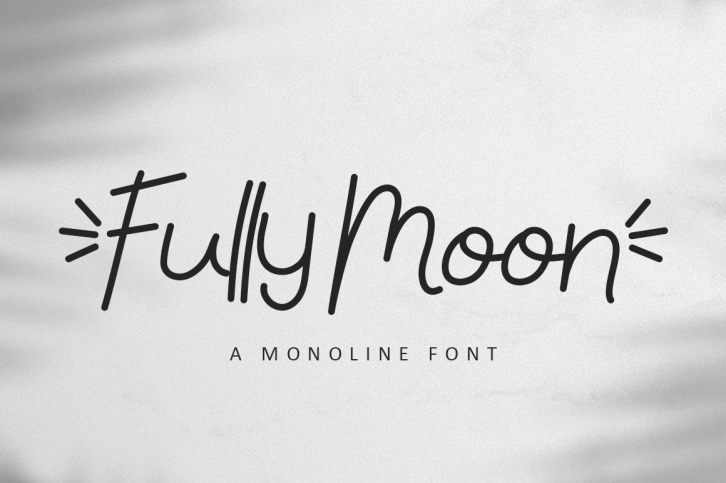
Fully Moon is a beautiful font that was designed by Bayu Suwirya. It's a great choice for designers and creatives who need such a font. It was released on June 18, 2020 and the file size is 19.19 MB. Fully Moon may give a more youthful, expressive and casual look to your project. It is a very beautiful, refined, elegant, and high-quality font.